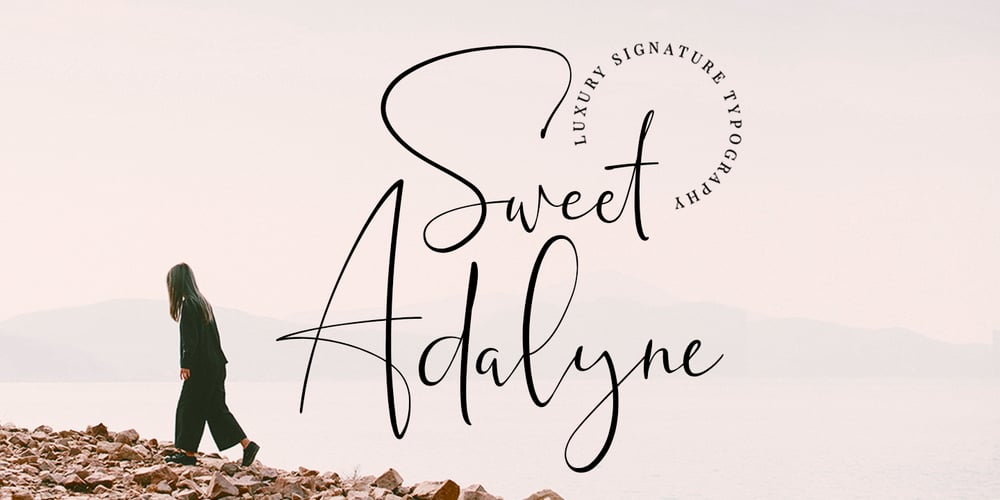
Sweet Adalyne
Sweet Adalyne font
Sweet Adalyne Font Family was designed by Hamzah Muhamad Ihsan and published by Typesthetic Studio. Sweet Adalyne contains 1 styles and family package options. Sweet Adalyne feels equally charming and elegant. It looks stunning on wedding invitations, thank you cards, quotes, greeting cards, logos, business cards and every other design which needs a handwritten touch.This font is PUA encoded which means you can access all of the glyphs and swashes with ease! It features a varying baseline, smooth lines, gorgeous glyphs and stunning alternates.